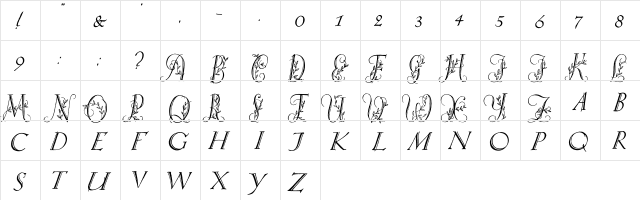
Springtime Capitals Normal Font Preview
Springtime Capitals Normal
Design Context for Springtime Capitals Typeface
Springtime Capitals is a composed and adaptable typeface that performs quietly and consistently across a wide range of design contexts.